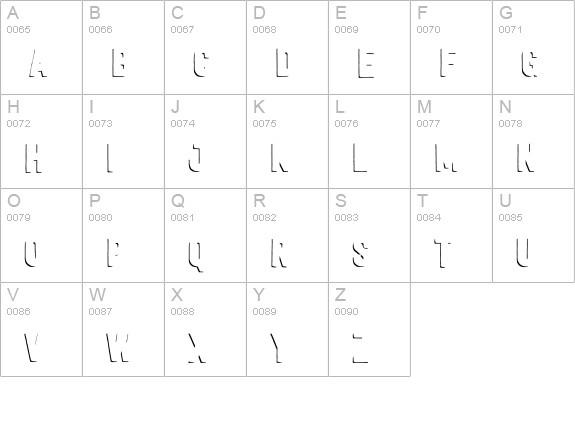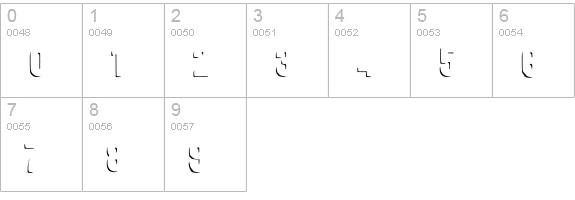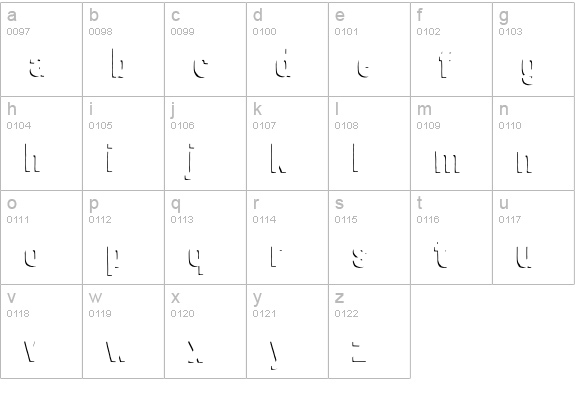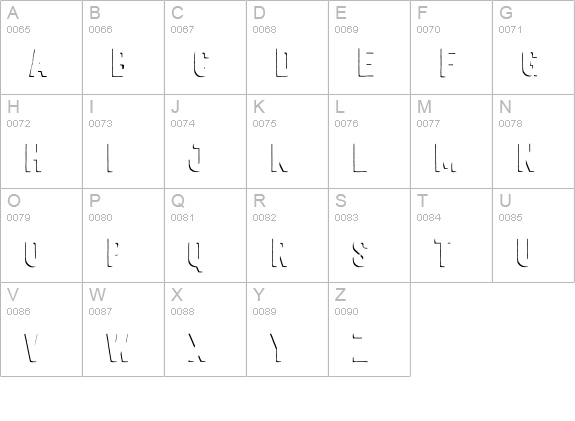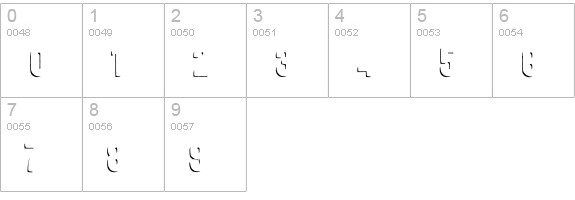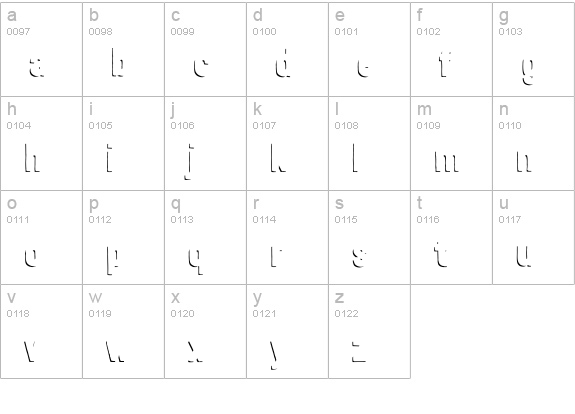
Festivo LC L Shadows Font Details
Introducing Festivo LC L Shadows font, a stunning display typeface that exudes a sense of elegance and sophistication. This unique font features intricate shadow details that add depth and dimension to each character, making it perfect for attention-grabbing headlines, branding projects, and more. With its modern yet classic aesthetic, Festivo LC L Shadows font is sure to make a bold statement in any design project. The tall and slender letterforms create a striking visual impact, while the subtle shadows add a touch of drama and flair. Best of all, Festivo LC L Shadows font is available for free download at FontsMarket.com. Whether you're a seasoned designer looking to add a fresh new font to your collection or a beginner exploring typography for the first time, this font is a versatile and stylish choice that will elevate your designs to the next level. Download Festivo LC L Shadows font today and unleash your creativity!